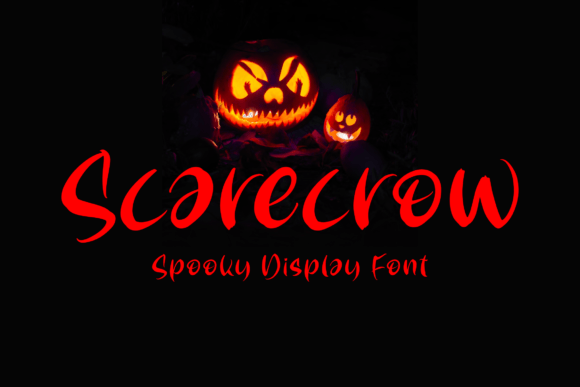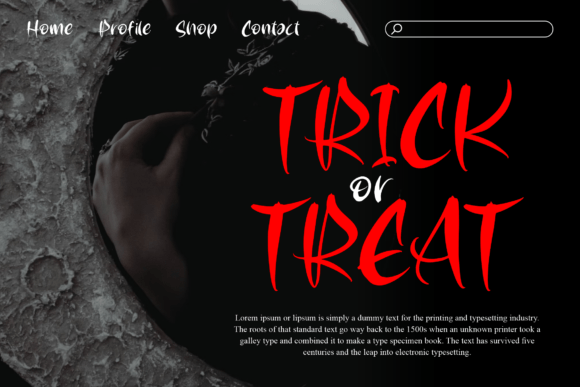
About Scarecrow Font
Scarecrow – Spooky handwritten font, suitable for any projects such as logos, branding projects, homeware designs, product packaging, mugs, quotes, posters, shopping bags, t-shirts, book covers, name cards, invitation cards, greeting cards, labels, photography, watermark, special events, and all your other lovely projects that need a beautiful script taste.